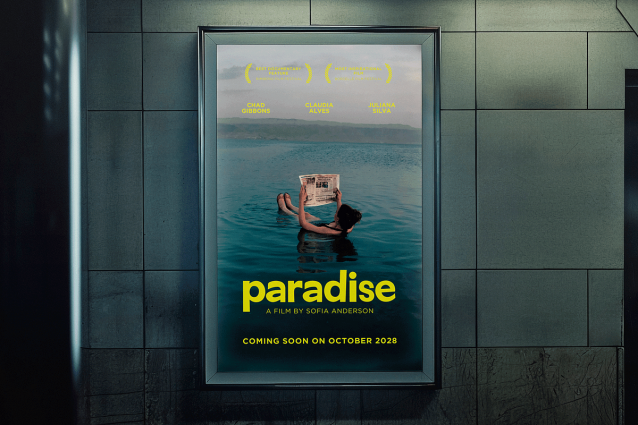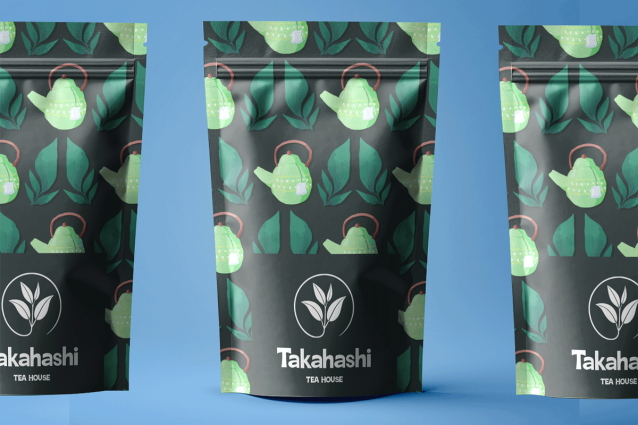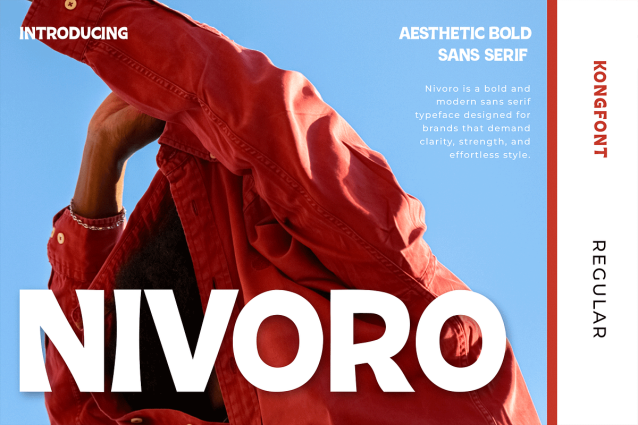
Nivoro Font
Nivoro Font an aesthetic bold sans serif font that blends clean geometry with striking modern presence. Designed for creatives who crave clarity and impact, Nivoro delivers a powerful visual identity that’s perfect for branding, headlines, posters, logos, website headers, and editorial layouts.